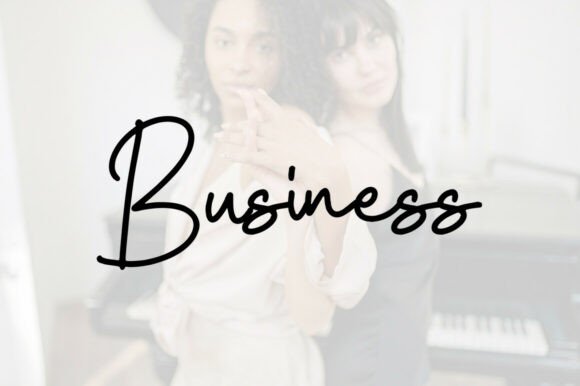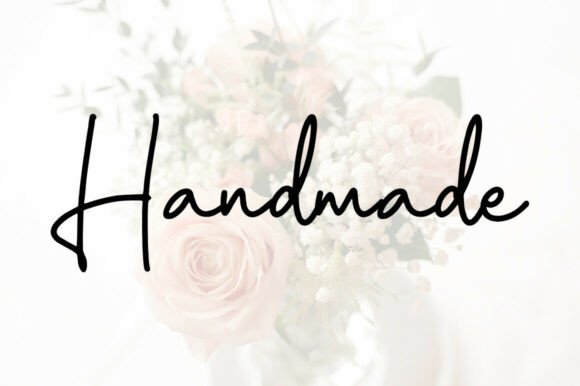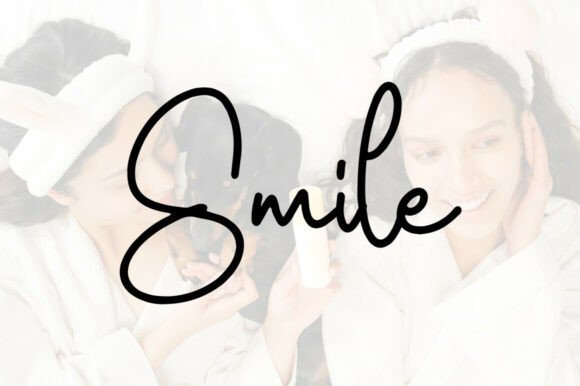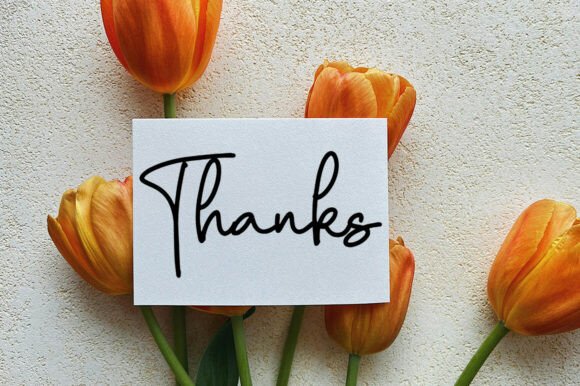
Introduction to Deserty Font
Deserty is a sweet and friendly handwritten font.
Fresh and casual, this font is ideal for writing wedding invitations, cards, or any other design that might need a lovely touch .